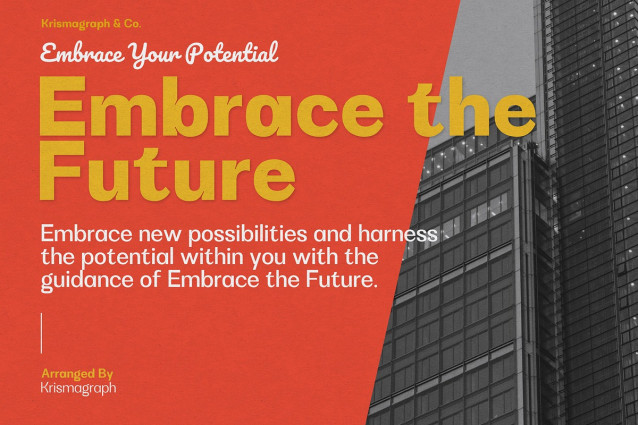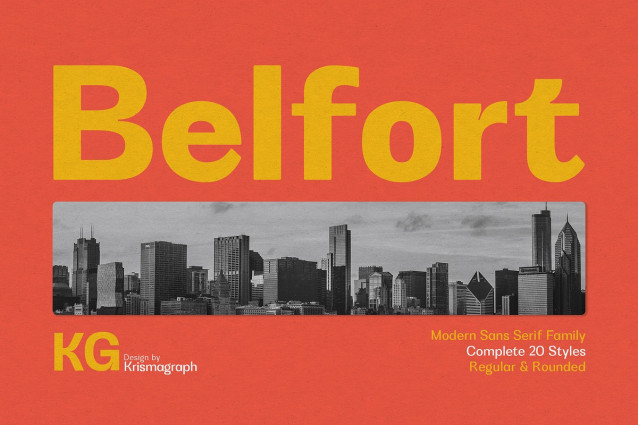
Belfort Font
Belfort Font is a modern sans serif family font with a neo-Grotesk touch, it is a sans serif typeface that tends to be easily accepted by readers, has wide usage possibilities, and shows a simple, bold, and strong personality. The Belfort font contains 2 basic shapes: upright and round. Each has 10 different weights (Thin, Extra Light, Light, Regular, Medium, Semibold, Thick, Extrabold, Black, and Heavy). with ligatures and alternating in several letters. and is equipped with a multilingual accent.